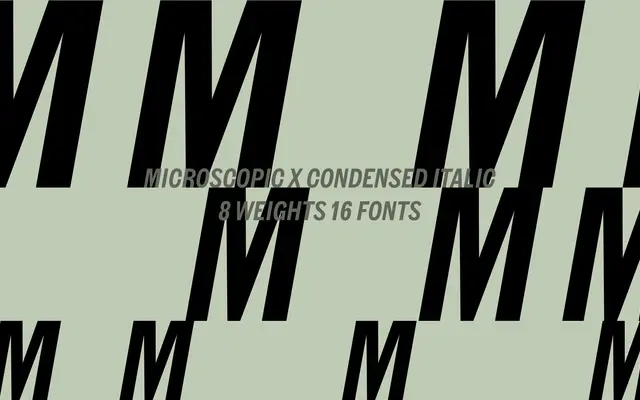
Microscopic X Condensed
Microscopic X Condensed specimen from A2-Type
A condensed grotesque revival of Gothic No. 3 from the 1908 Barnhart Brothers & Spindler specimen, built as a duplexed system for screen and small-size use.
Derived from an early 20th-century American gothic type specimen, the design preserves the source's unusual mix of square and soft construction, including the distinctively pinched bowls on letters like b, d and p. The entire family is duplexed, meaning every weight occupies identical advance widths, making it practical for interfaces where weight switching cannot disturb layout. Sixteen styles run across eight weights from Light to Heavy, each with a matching italic.
Drawn from Gothic No. 3, a late 19th/early 20th-century American gothic typeface, placing it firmly in the condensed grotesque tradition with mechanically constructed forms and squared-off details.